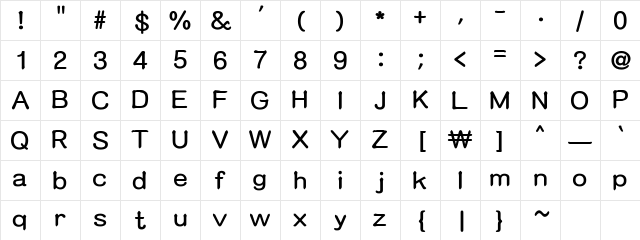
MDArt Regular Free Font
MDArt Regular
Foundry: MorrisDesign
Designer: MorrisDesign
Design Context for MDArt
MDArt is a composed and adaptable typeface that performs quietly and consistently across a wide range of design contexts.